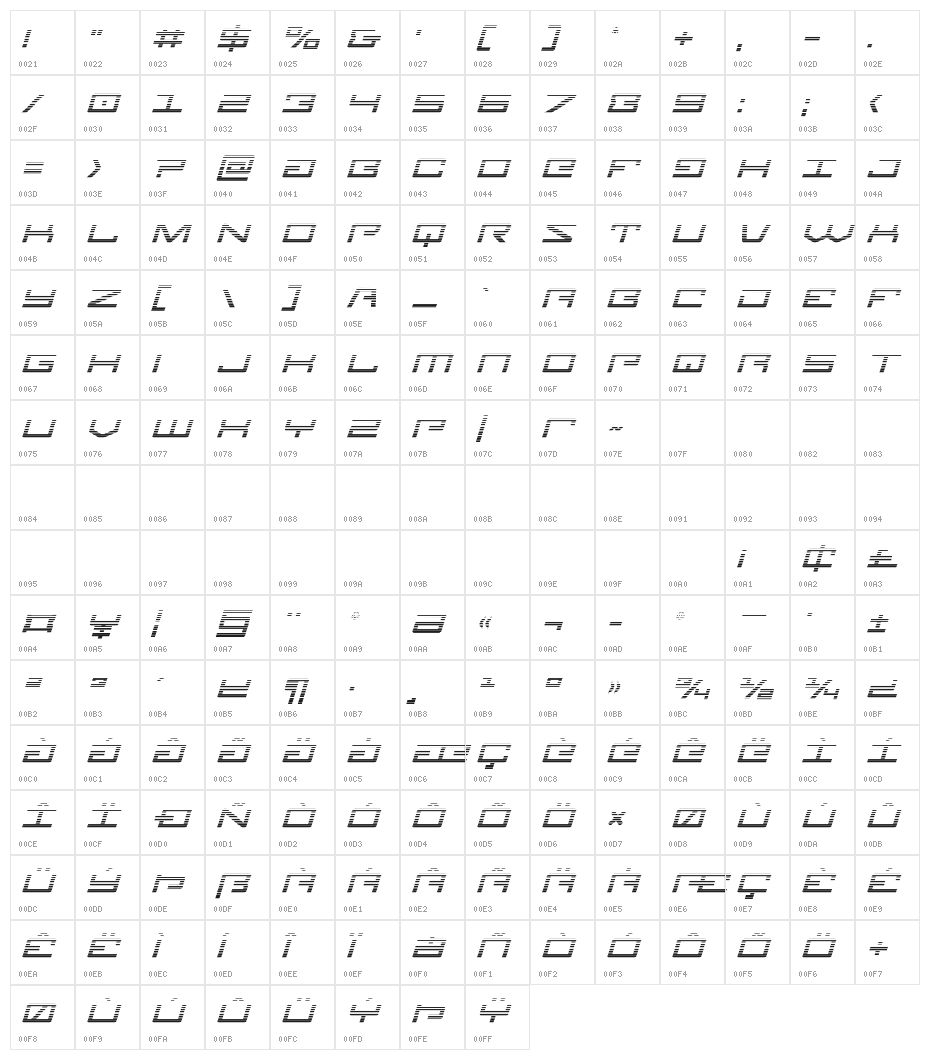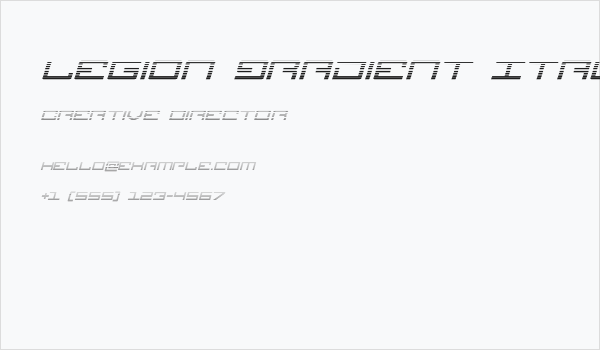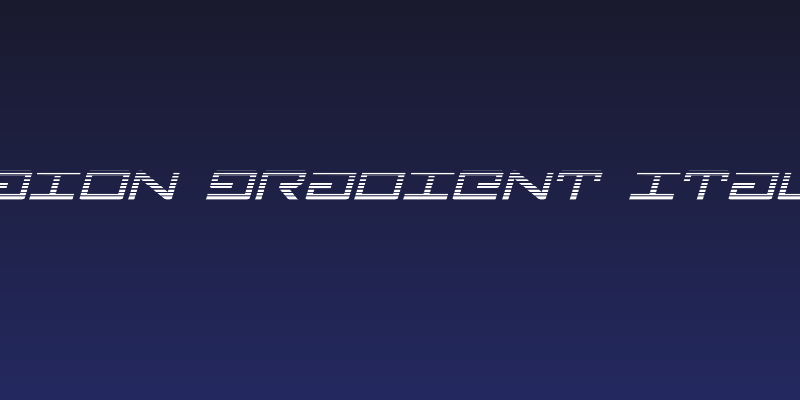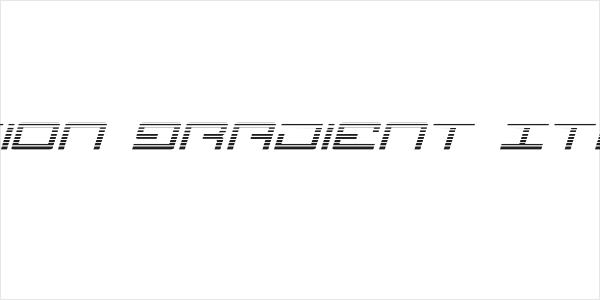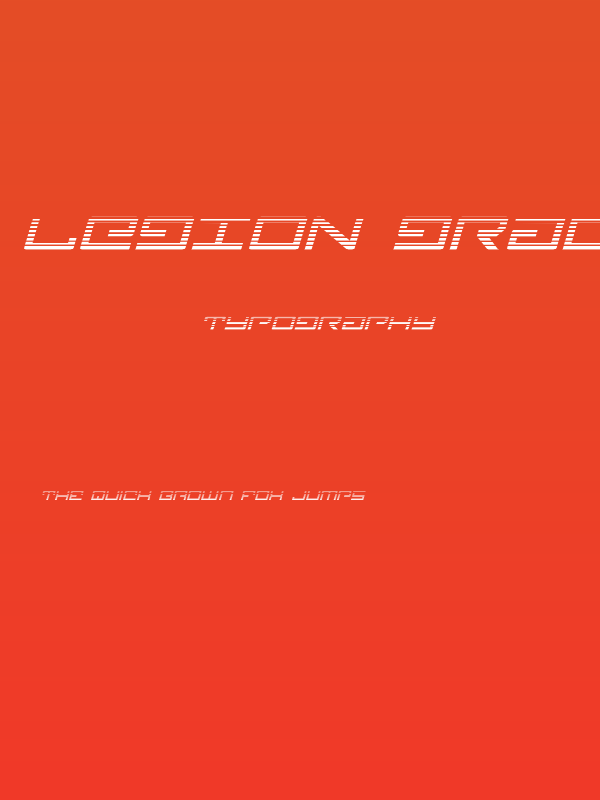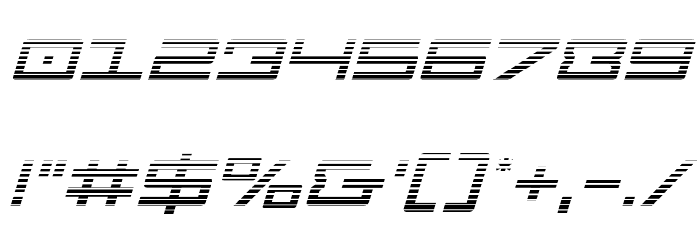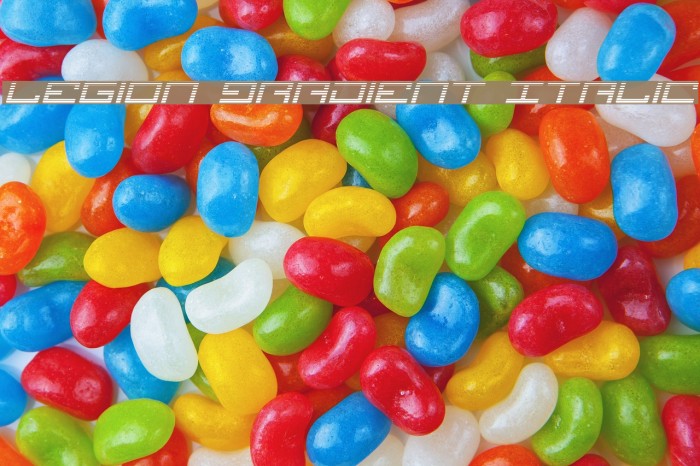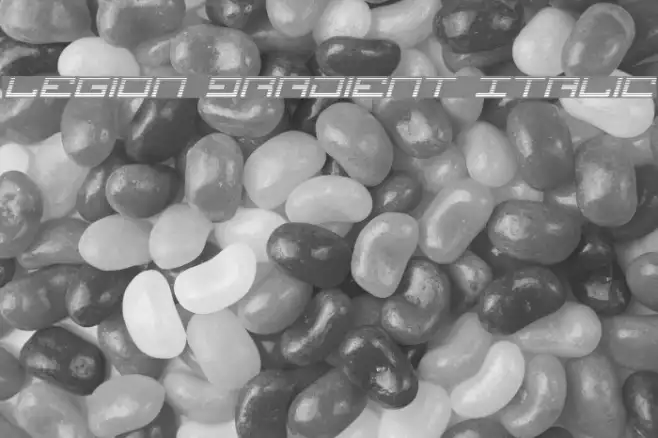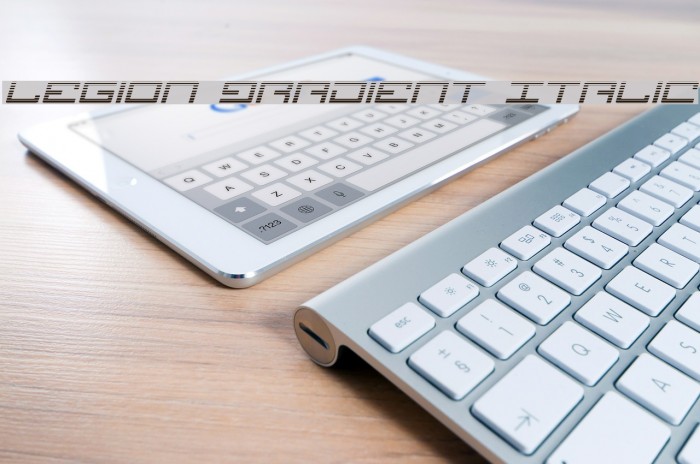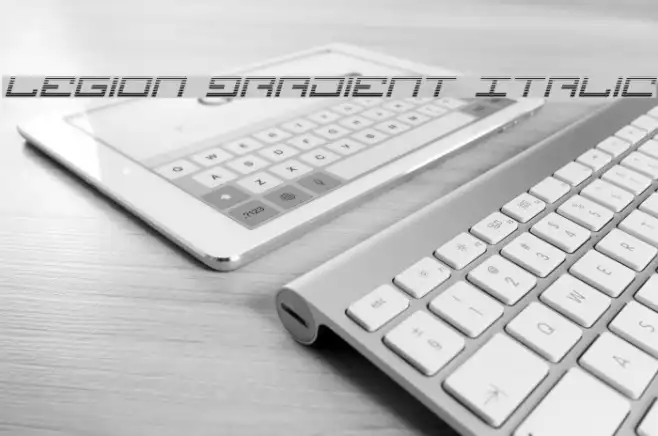
Legion Gradient Italic Font
Legion Gradient Italic Description
This font features a futuristic and dynamic design with a distinct gradient effect across each character. The letters are italicized, giving a sense of motion and speed. The characters are composed of multiple horizontal lines that create a striped appearance, enhancing the modern and digital aesthetic. The uppercase and lowercase letters maintain a consistent style, while the numbers and special characters integrate seamlessly with the overall design. This font is ideal for projects that require a cutting-edge, tech-inspired look.
| Proposed Projects | Ideal for technology branding, sci-fi themed designs, video game titles, and digital media. |